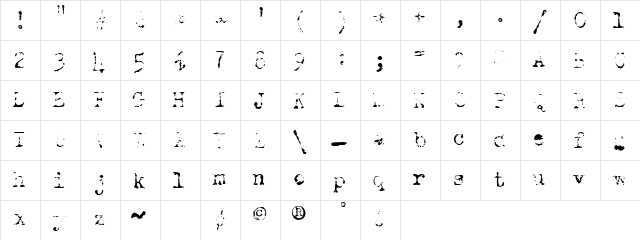
Old Typewriter Skimpy
Design Context for Old Typewriter Typeface
Old Typewriter uses fixed-width spacing throughout, giving it the structured, systematic character associated with coding environments and technical documentation.
Pro Tip: Use Old Typewriter with slightly increased line-height for extended reading — fixed-width spacing can feel dense in longer passages without extra breathing room.